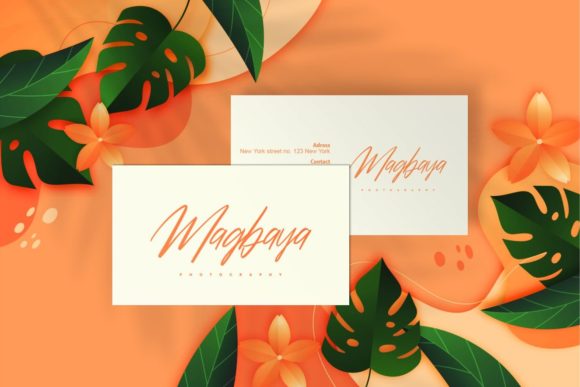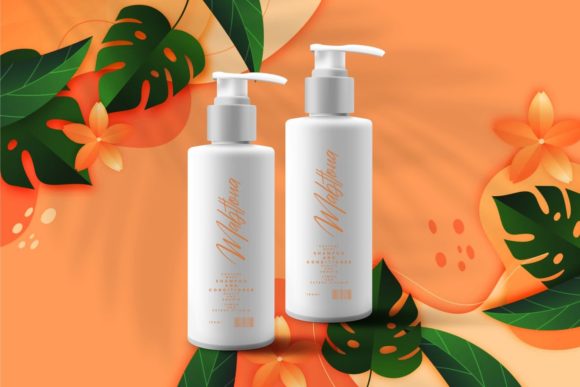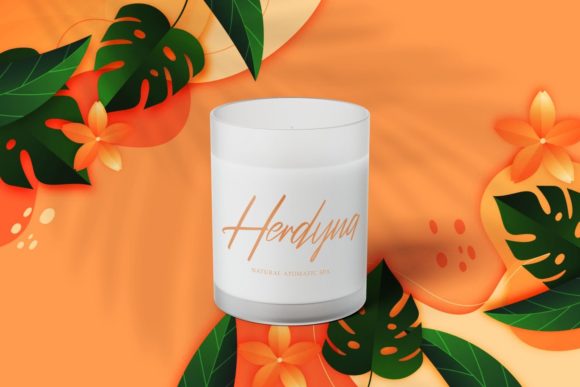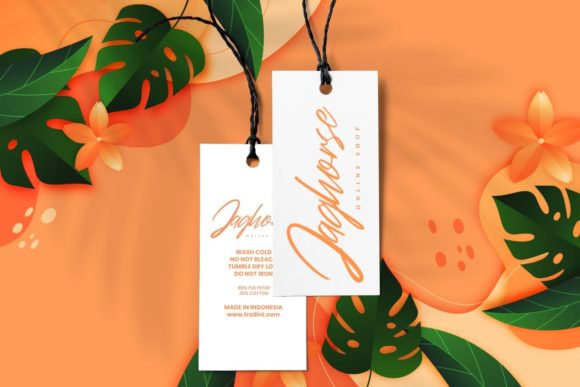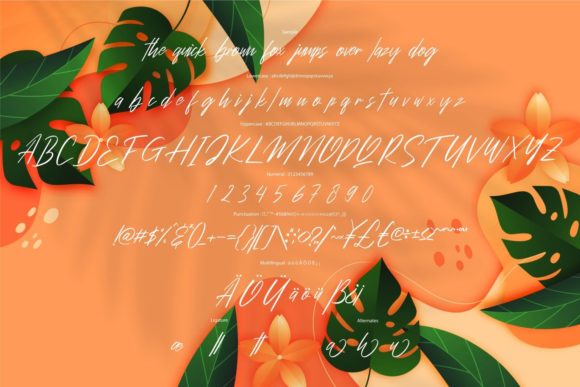
Introduction to Hiallia Font Font
Fonts play a crucial role in design, and the Hiallia Font font is a typeface that brings both character and versatility to any project. Whether you’re working on a branding project, a website, or a print design, the Hiallia Font font offers a unique style that can elevate your work.
Hiallia is a romantic and sweet calligraphy typeface with characters that dance along the baseline.
It has a casual, yet elegant touch .
Key Features of Hiallia Font Font
Why Choose Hiallia Font Font?
The Hiallia Font font is more than just a typeface – it’s a design tool that helps you communicate your message with style and clarity. Its unique character set and versatile design make it suitable for a wide range of applications, from elegant invitations to bold headlines.
With its carefully crafted letterforms and balanced proportions, the Hiallia Font font ensures readability and visual appeal across all mediums.
What makes Hiallia Font font special?
The Hiallia Font font stands out with its unique design, exceptional readability, and versatility across various design applications.